Review Of Connected Script Fonts Ideas
Review Of Connected Script Fonts Ideas. These features make it challenging to achieve a level of legibility when designing. By connected fonts i mean fonts where the letters are linked together so that after cutting a word is just one piece.
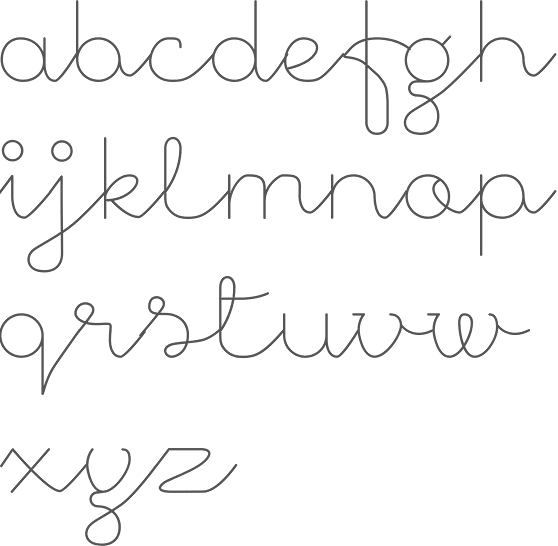
Are you looking for the perfect connected. The fonts in use section features posts about fonts used in logos, films, tv shows, video games, books and more; 30 extremely legible script fonts.
It Is Designed By Vladimir Nicolic.
By Definition, Script Fonts Are Fluid, Varied, And Connected.
This Allows Certain Script Fonts To Connect Automatically As You Type Them!
Are You Looking For The Perfect Connected.